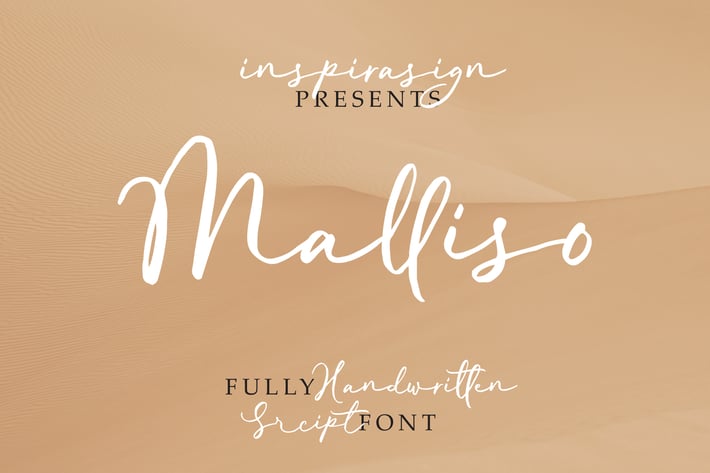
Malliso - Handwritten Script Font
inspirasign
Malisso is perfect to use for Logotype, Letterhead, Poster, Apparel Design, Label and etc.
Hundred of glyphs